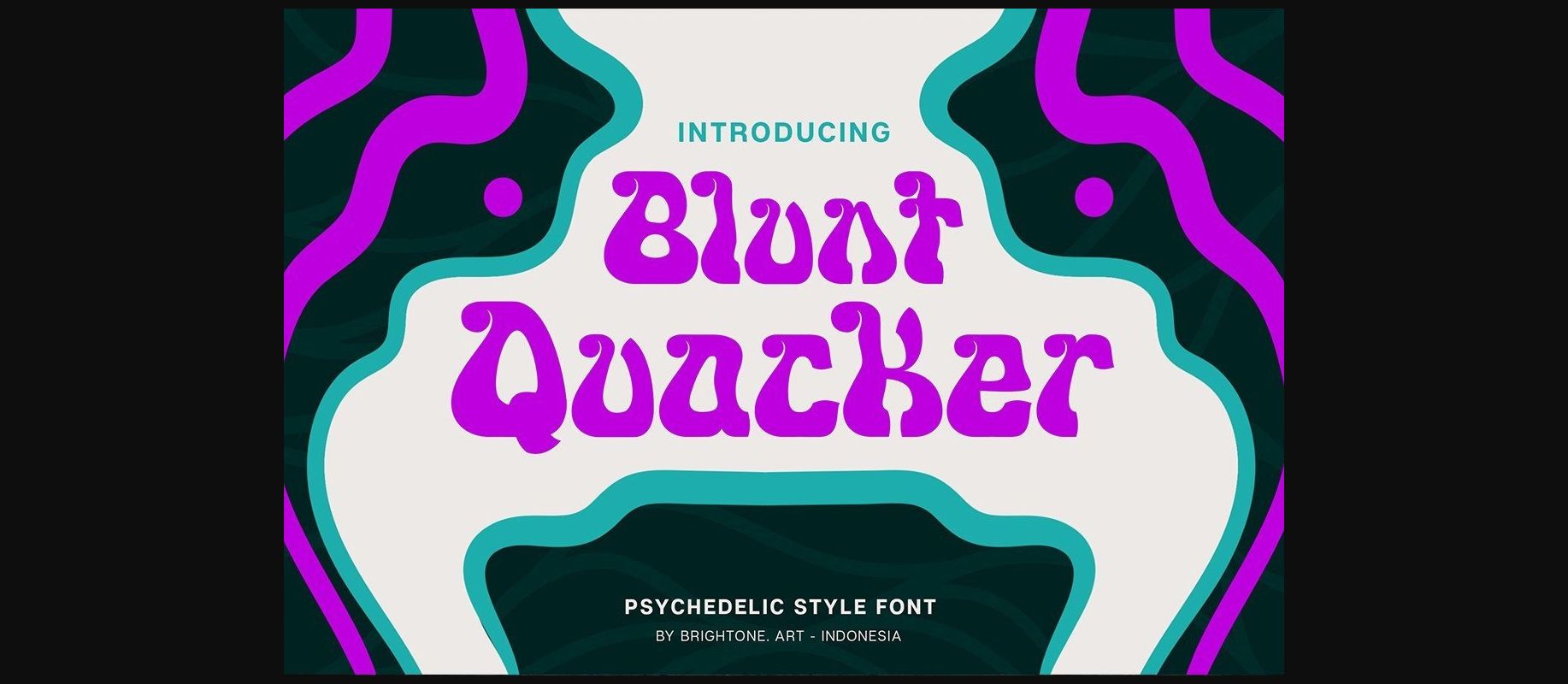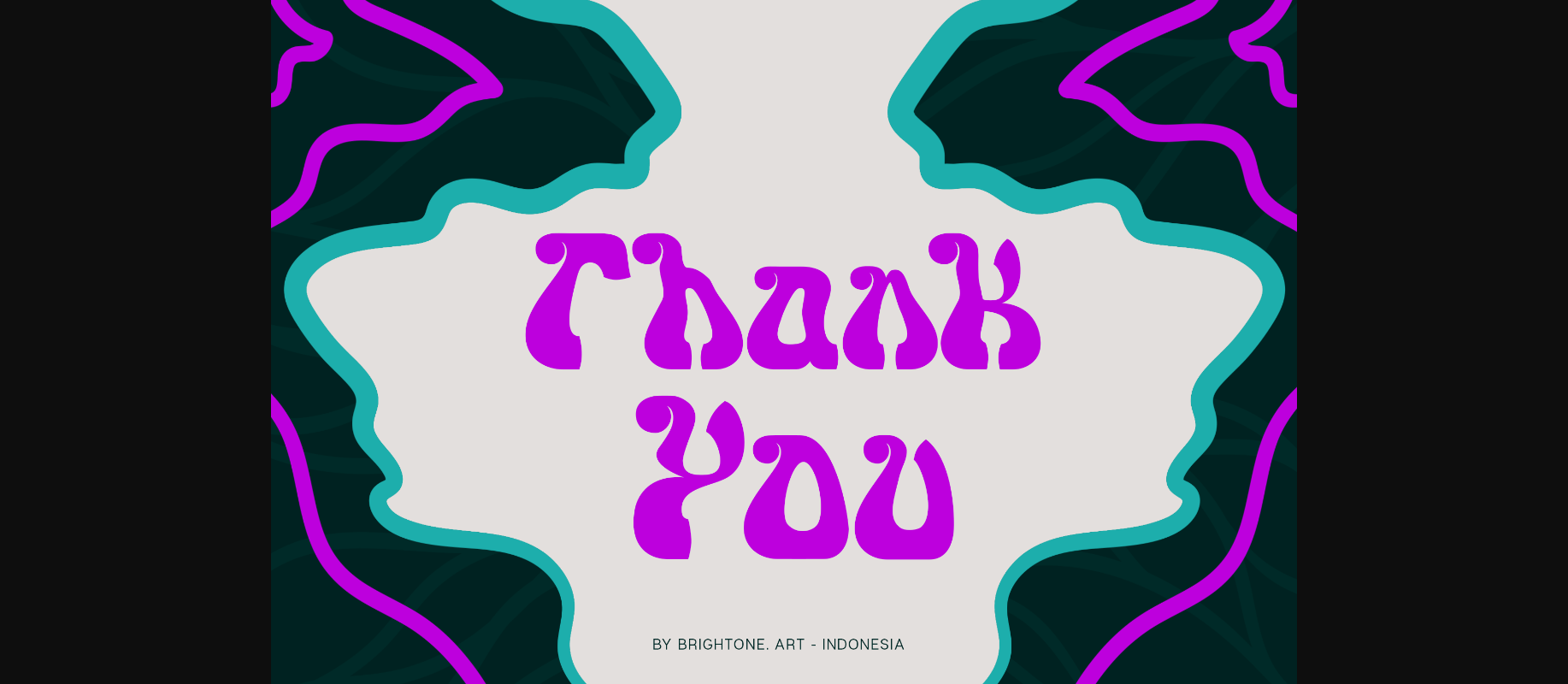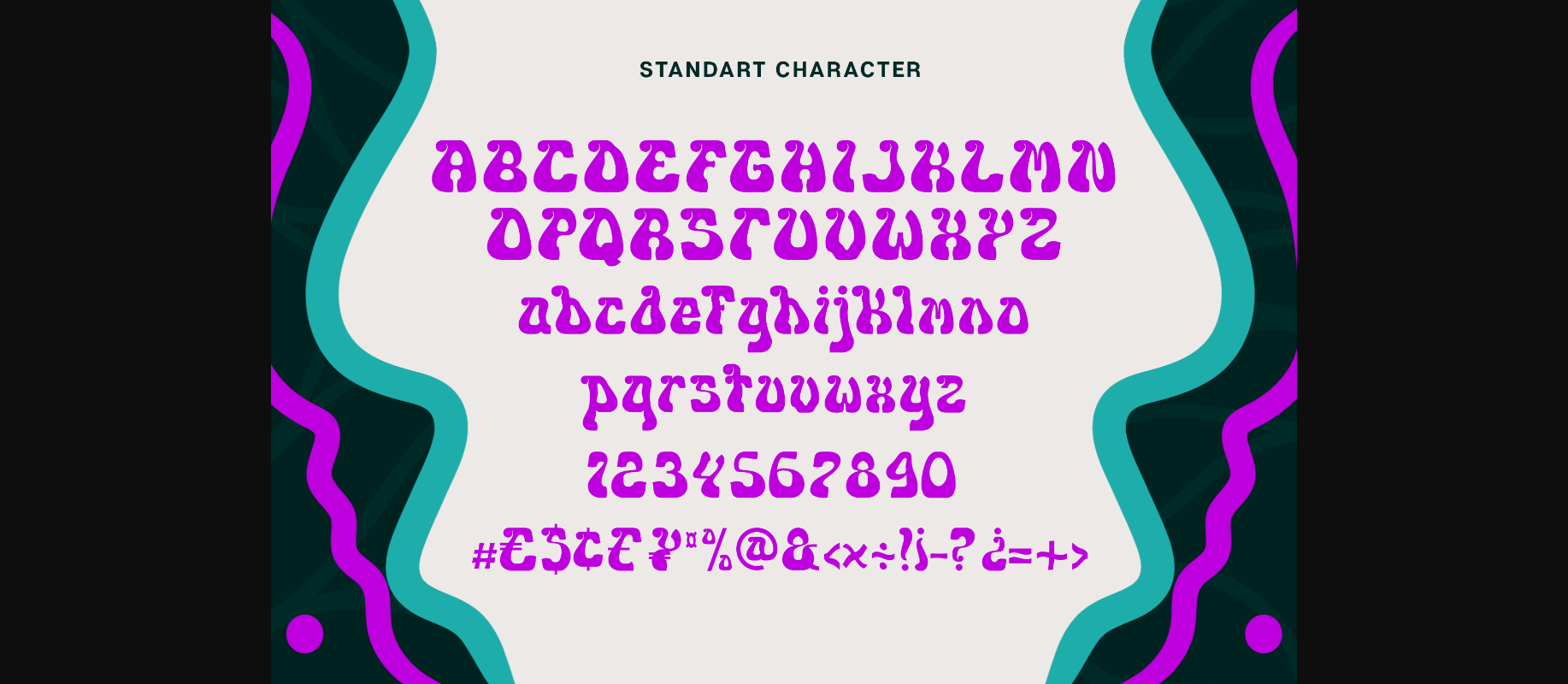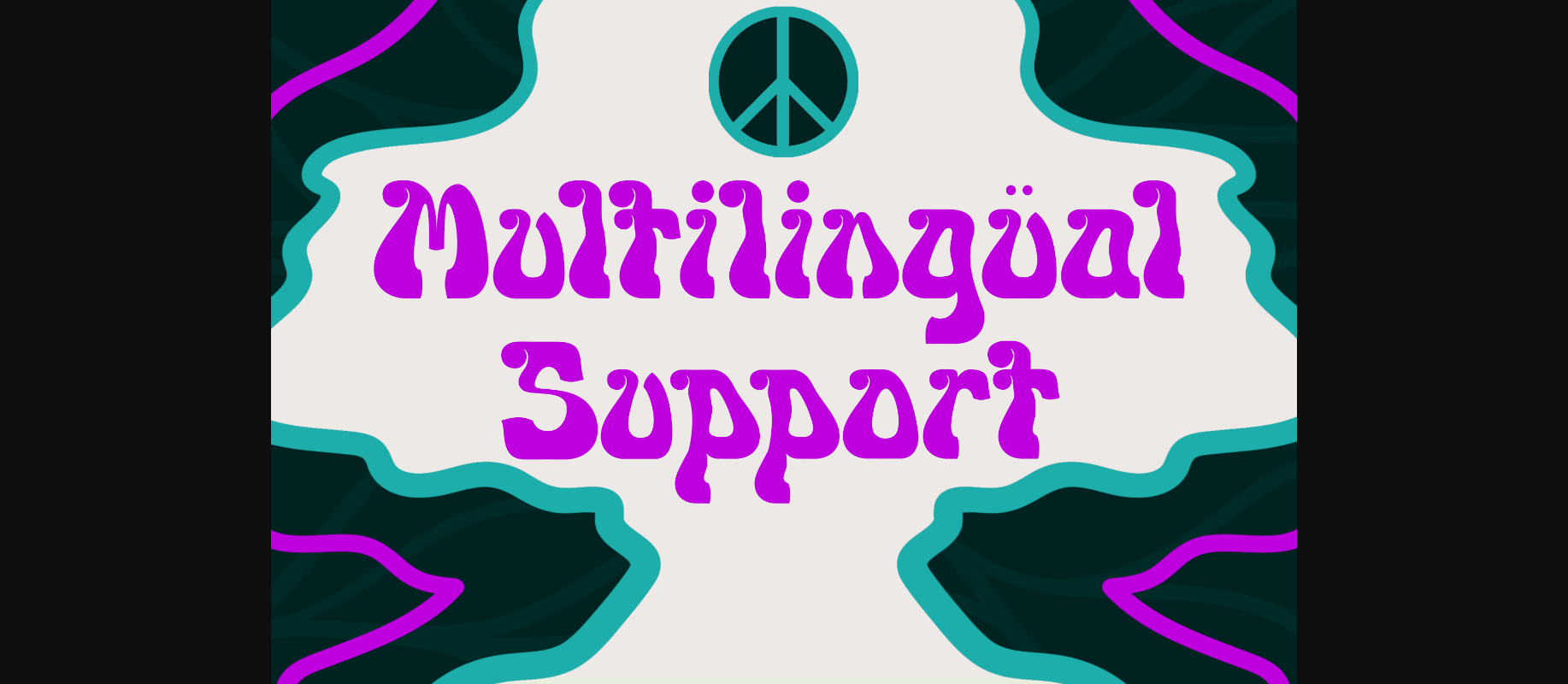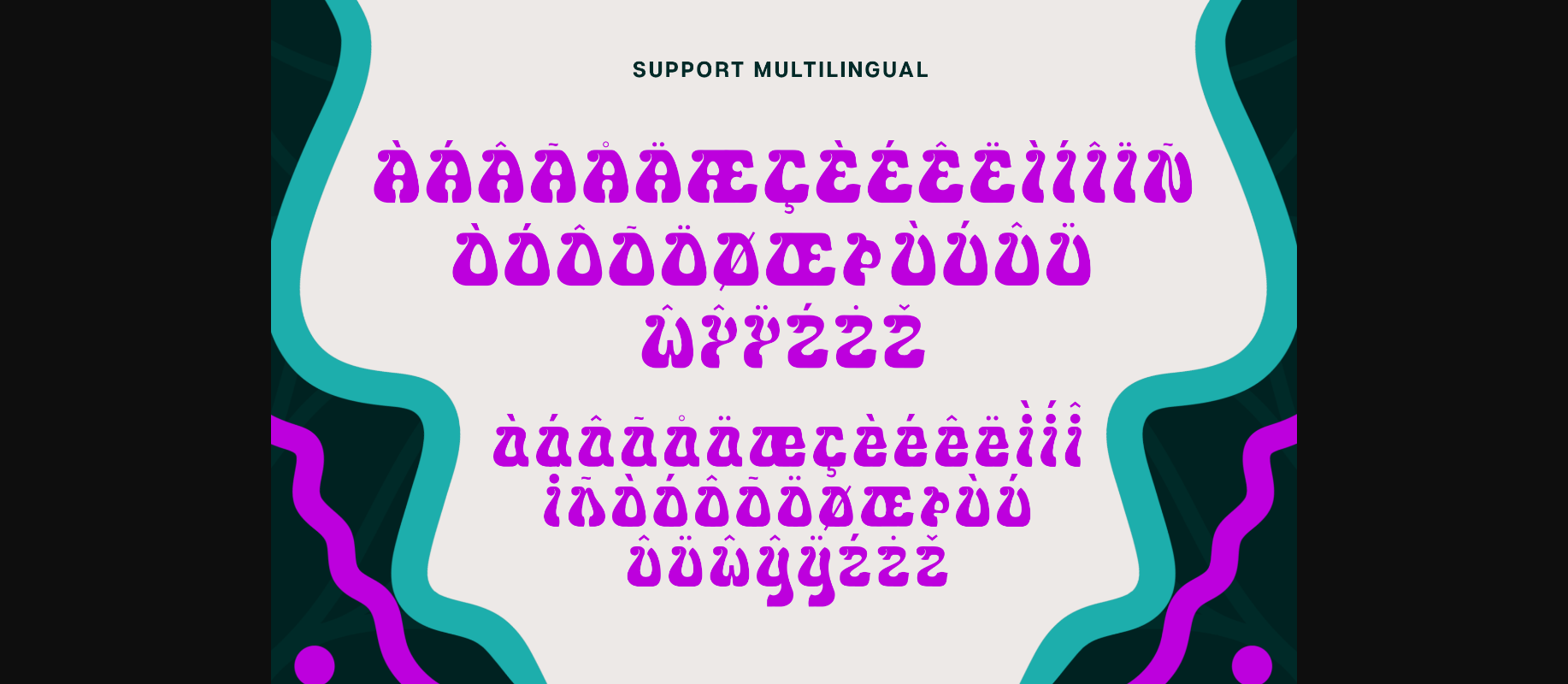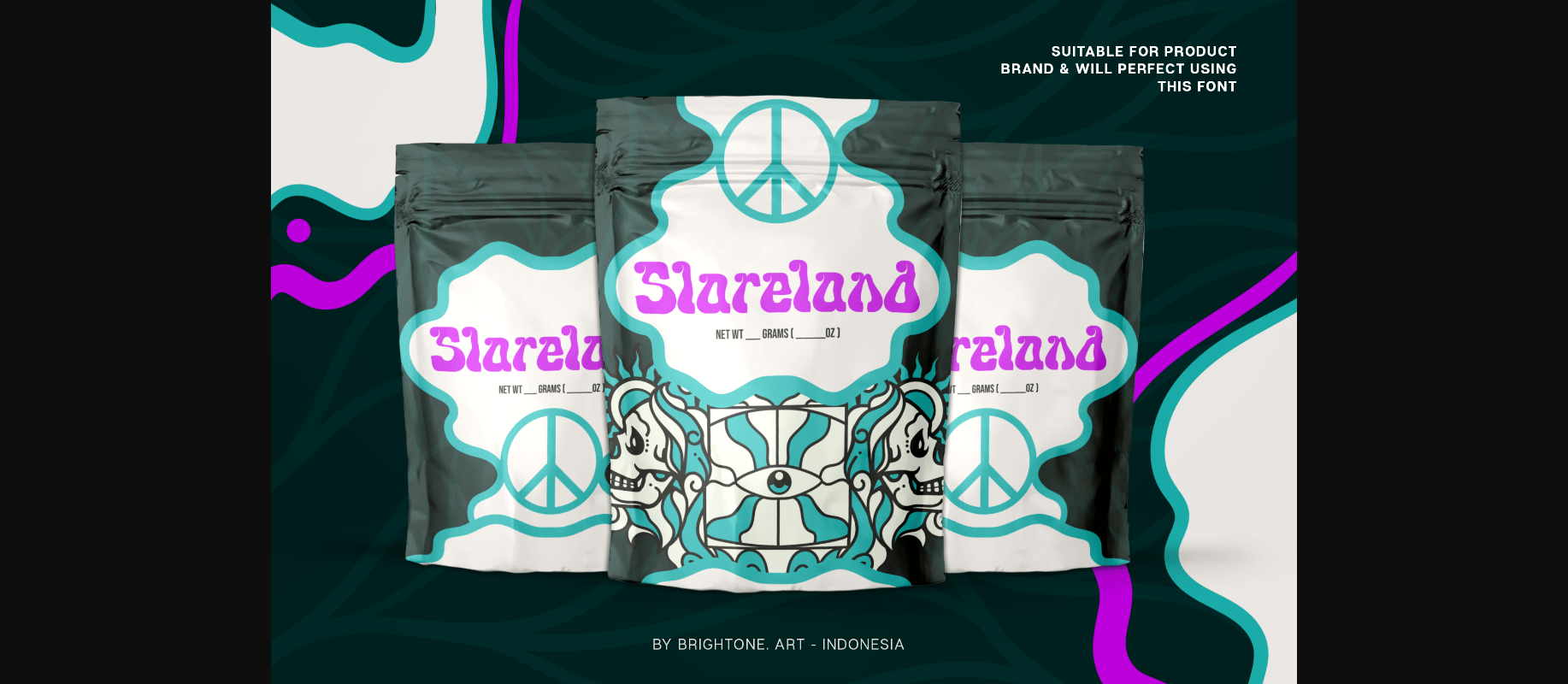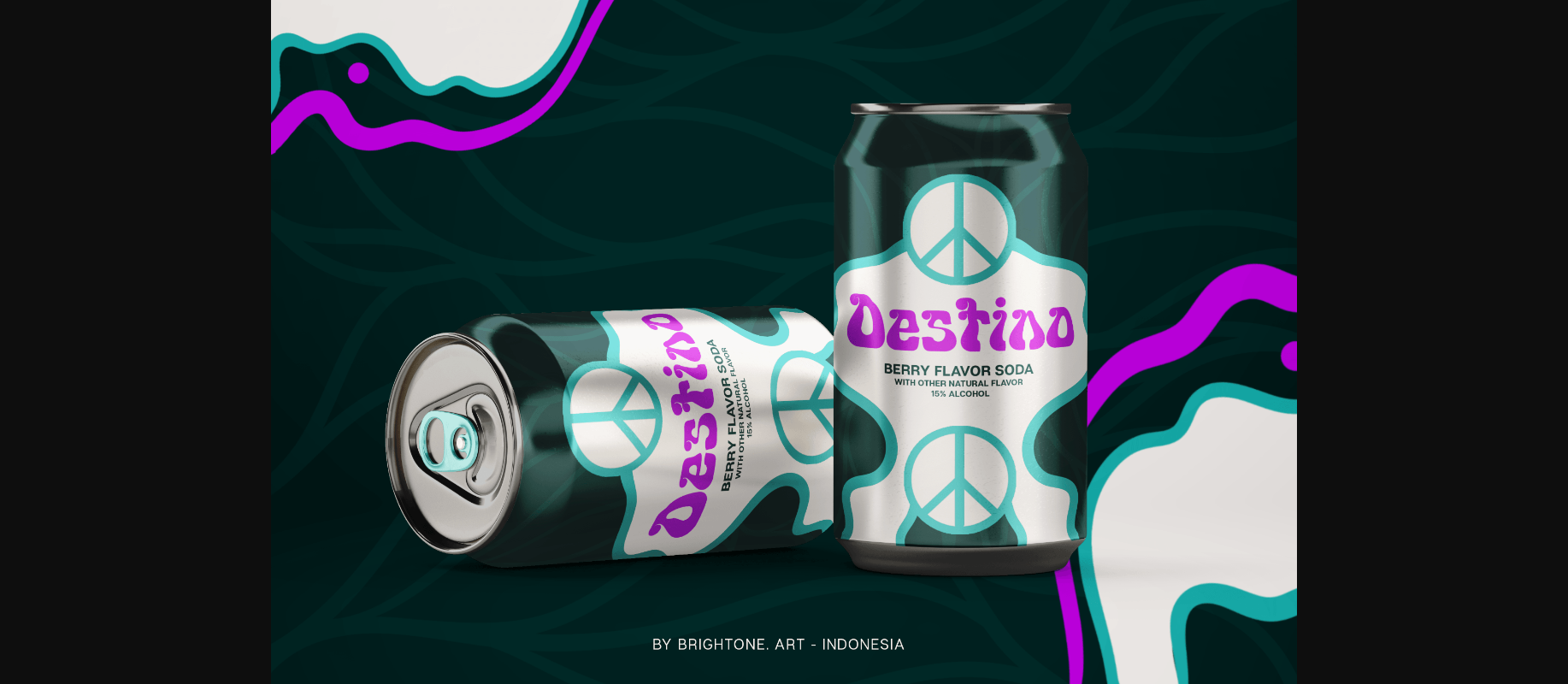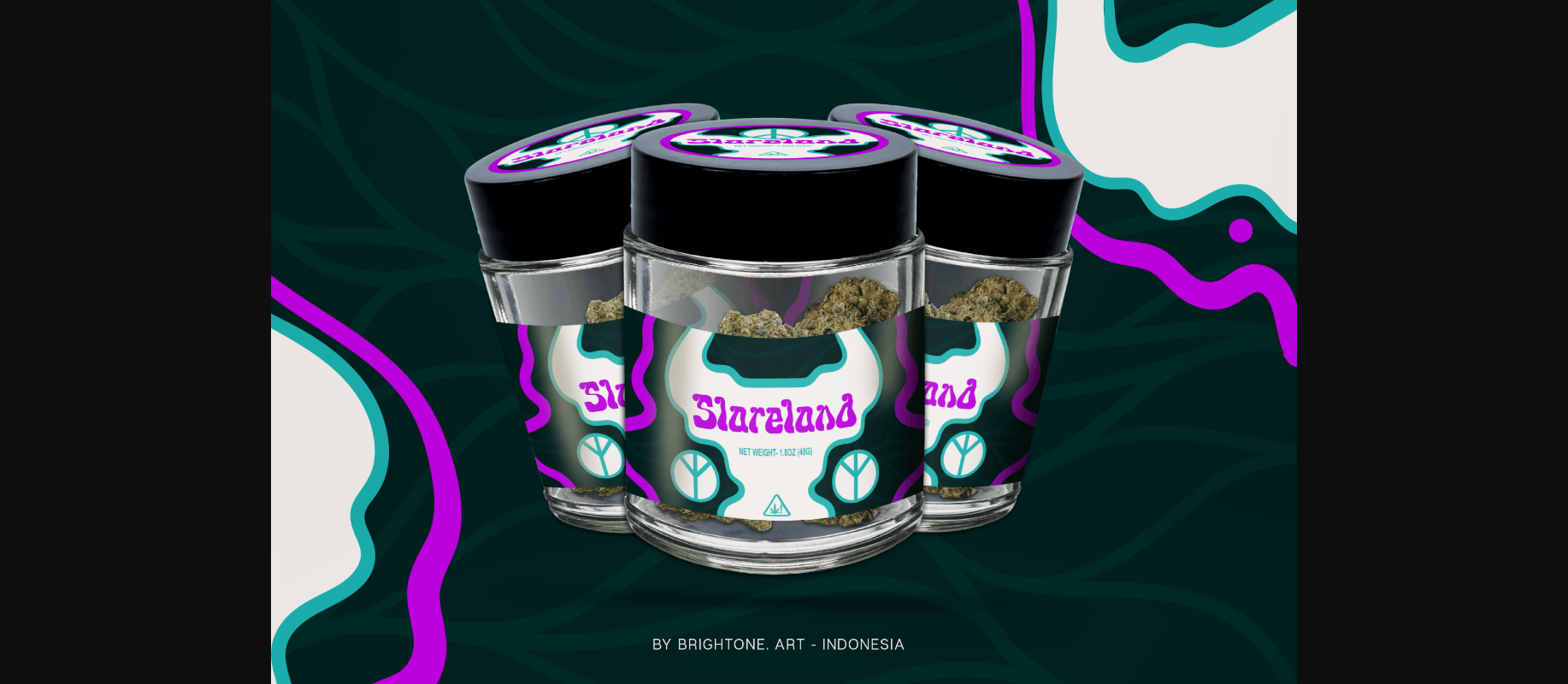
Blunt Quacker is a decorative font with good style and unique touch. This font is suitable for all your logo lettering, logos, labels, packaging, stickers, and branding purposes.